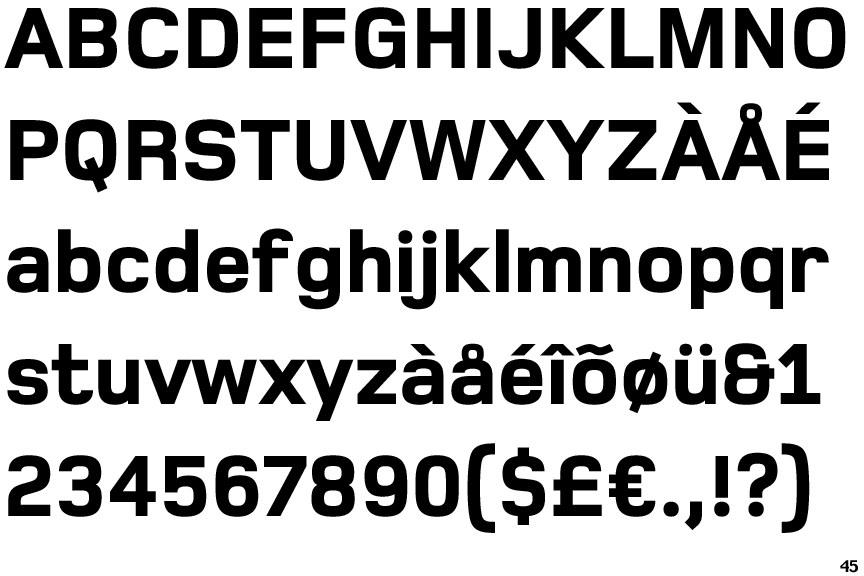
+23 Foundry Monoline Font Family Free Download 2022. Web foundry monoline is a typeface designed by , and is available for desktop, web, digitalads, app, epub, and server. Foundry monoline w04 lt font is a basic,sans seriftype font that can be used on any.
Web The Foundry Monoline Extrabold Font Was Designed By David Quay And Freda Sack.
Careful Also For Large Posters Or Signs.